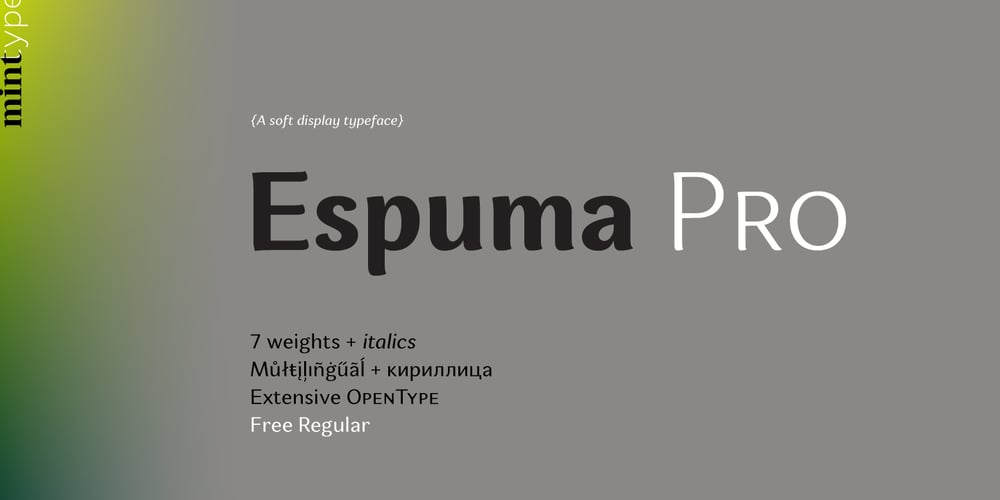
Espuma Pro
Espuma Pro font
Espuma Pro Font Family was designed by Andriy Konstantynov and published by Mint Type. Espuma Pro contains 14 styles and family package options. Espuma Pro is a soft and friendly humanist sans-serif font family with strong calligraphic aftertaste. Presented in 7 weights, with true italics each, it features the traditionally rich language support, small caps, 6 sets of figures and a bunch of ligatures. Its delicate flavor is suitable for brands that wish to communicate friendliness and openness. This typeface is especially good for FMCG and packaging, but it can be used virtually anywhere thanks to its extreme legibility.